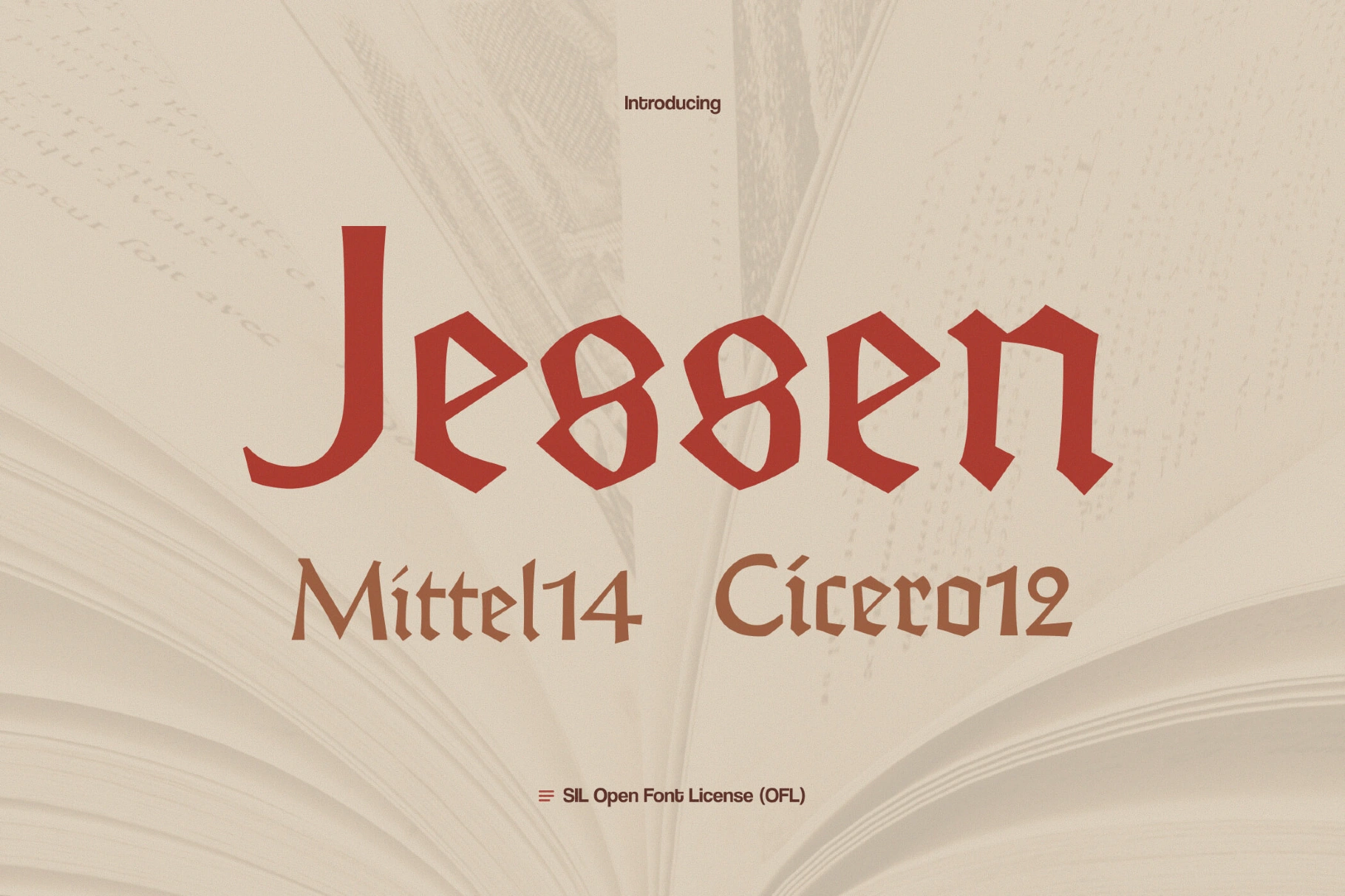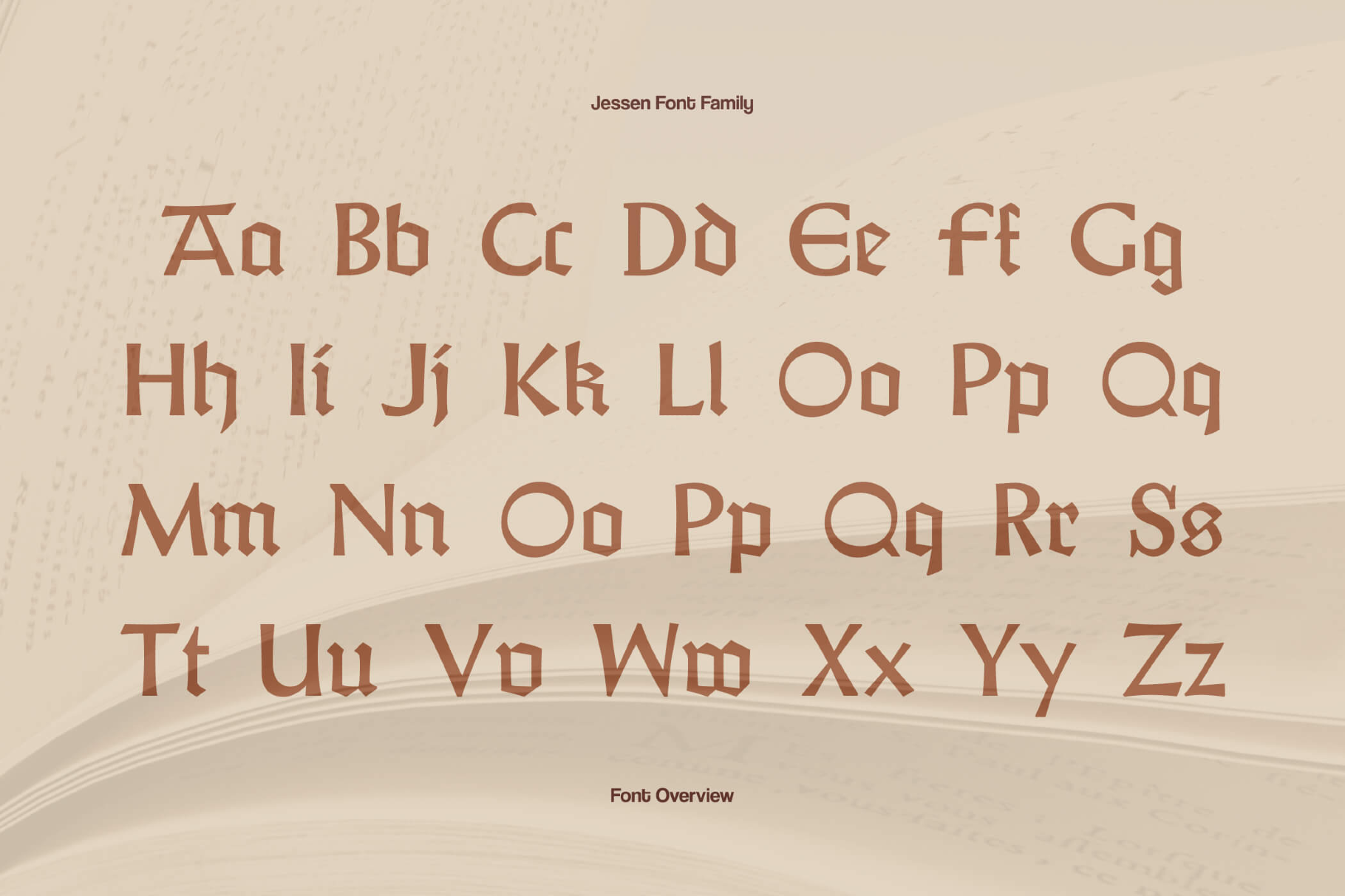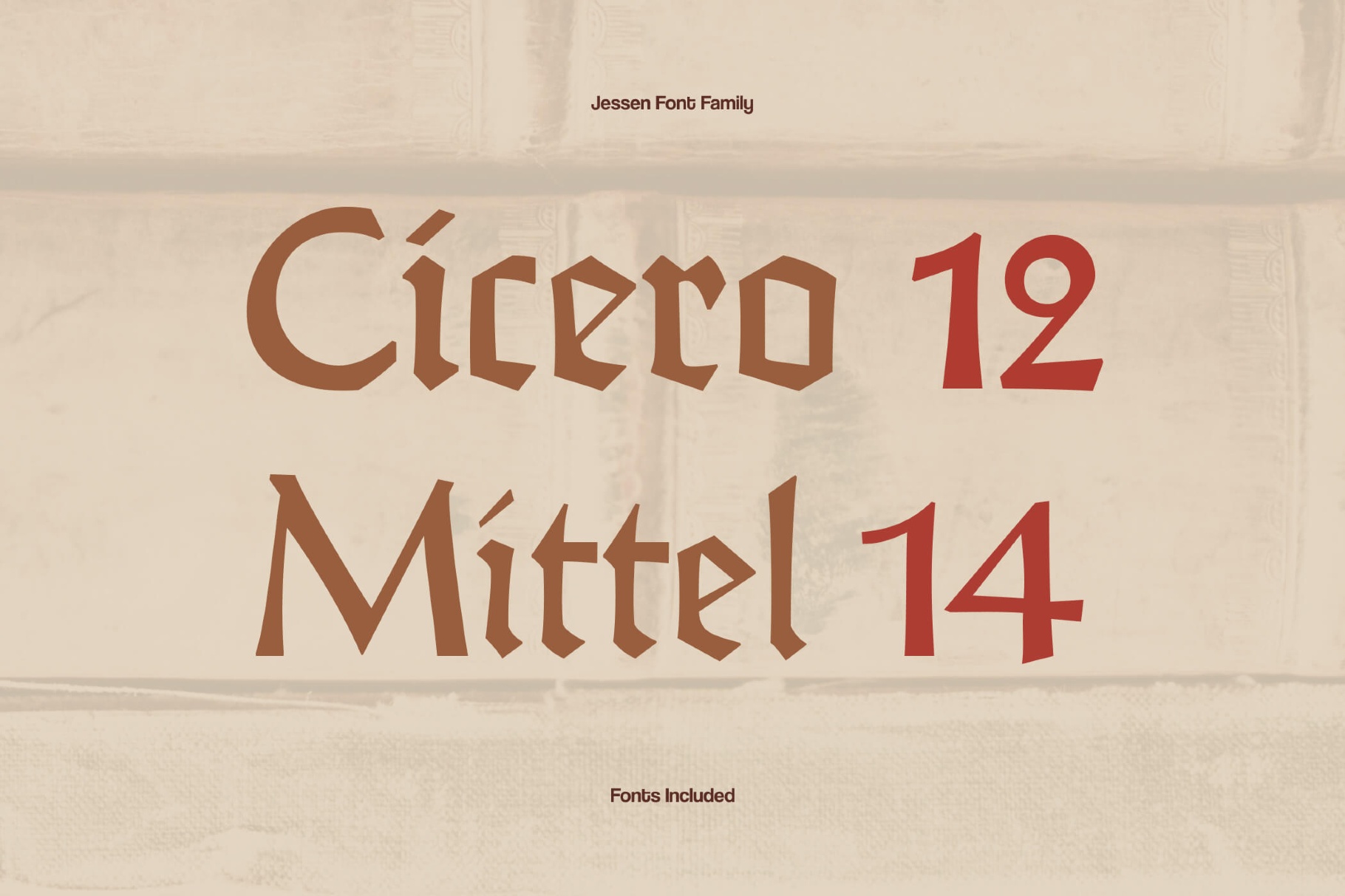
Jessen Tattoo Font Family
Jessen links condensed gothic minuscules with stately roman capitals. It conveys a solemn, bookish tone, with calligraphic strokes, tight curves, tapered verticals, and firm serifs — pretty close to hand-cut metal type.
Use it for liturgical or historical book design, new editions of classic literature, and editorial layouts that need a quiet, scholarly voice. The font suits titles and pull quotes in magazines, chapter openings in long-form reports, and identity systems for cultural institutions, libraries, and presses. It also works well for packaging with a heritage angle, exhibition graphics, and typographic posters.